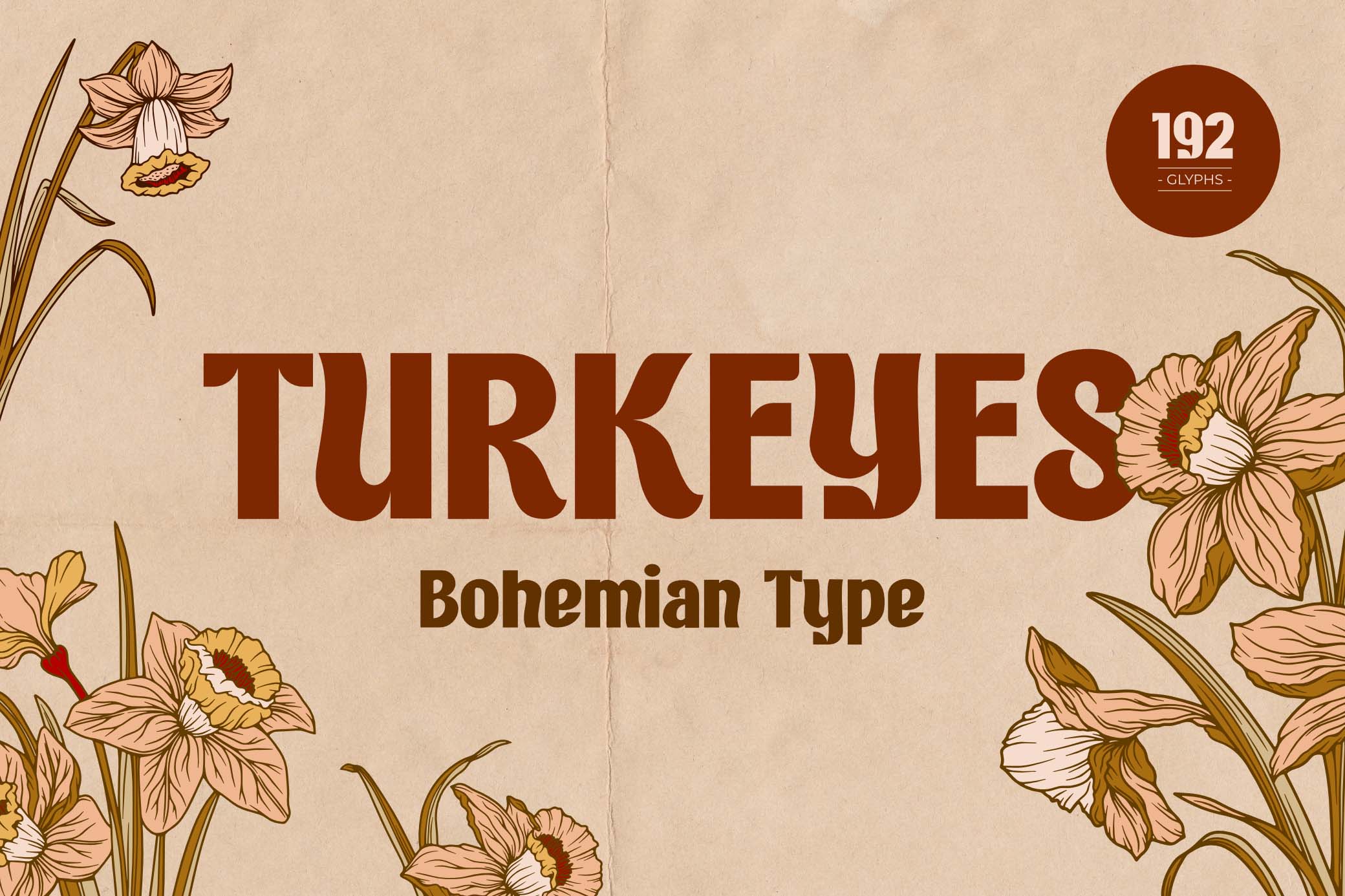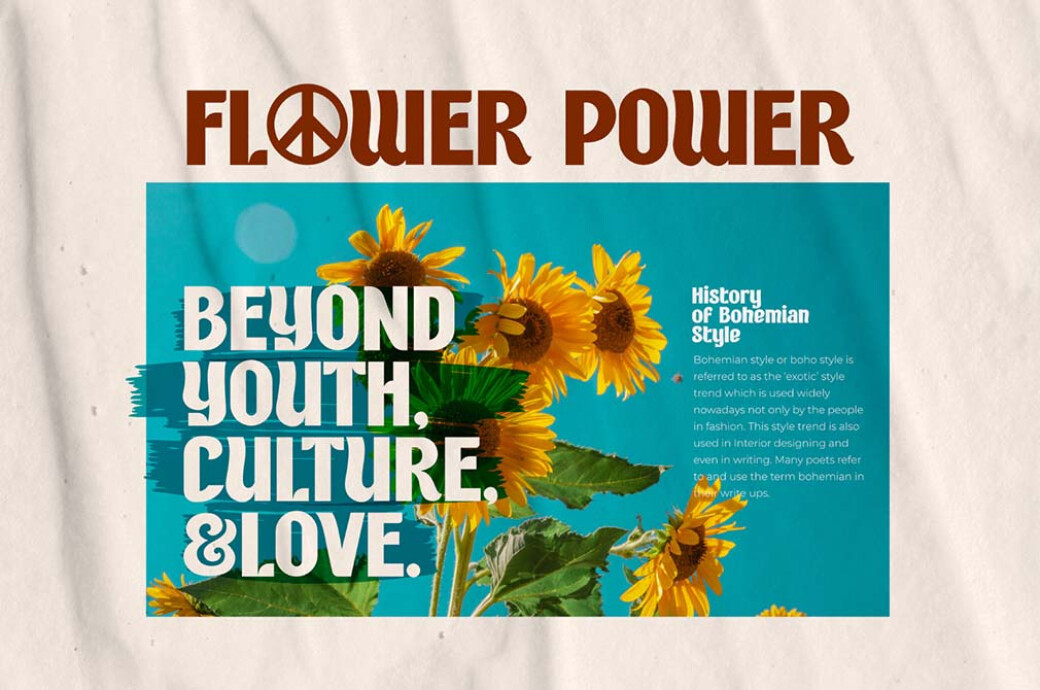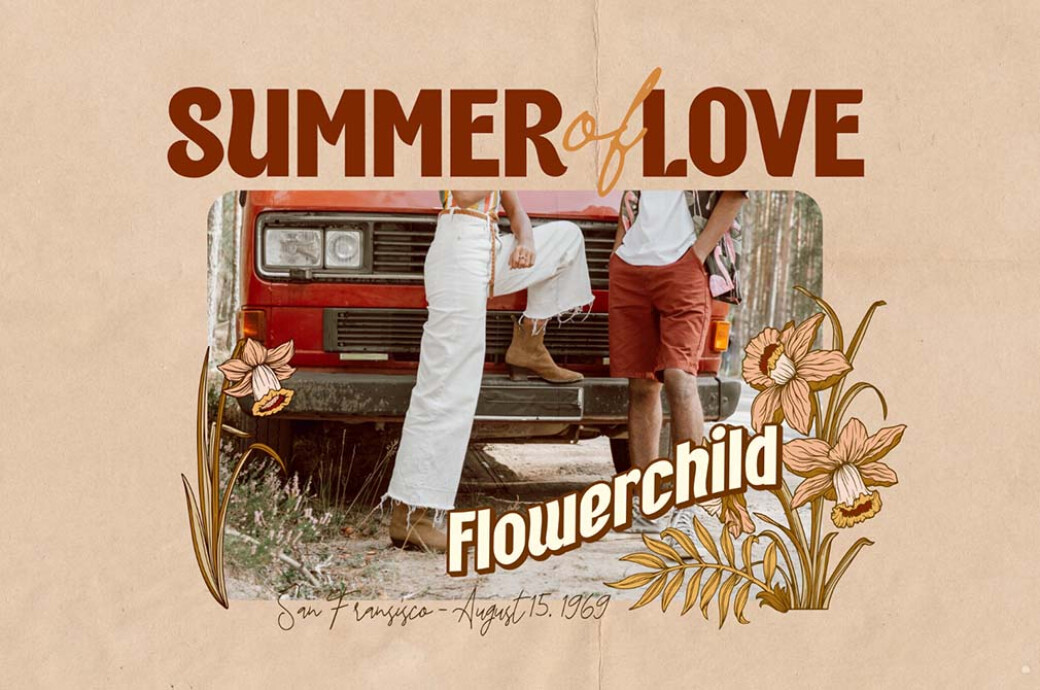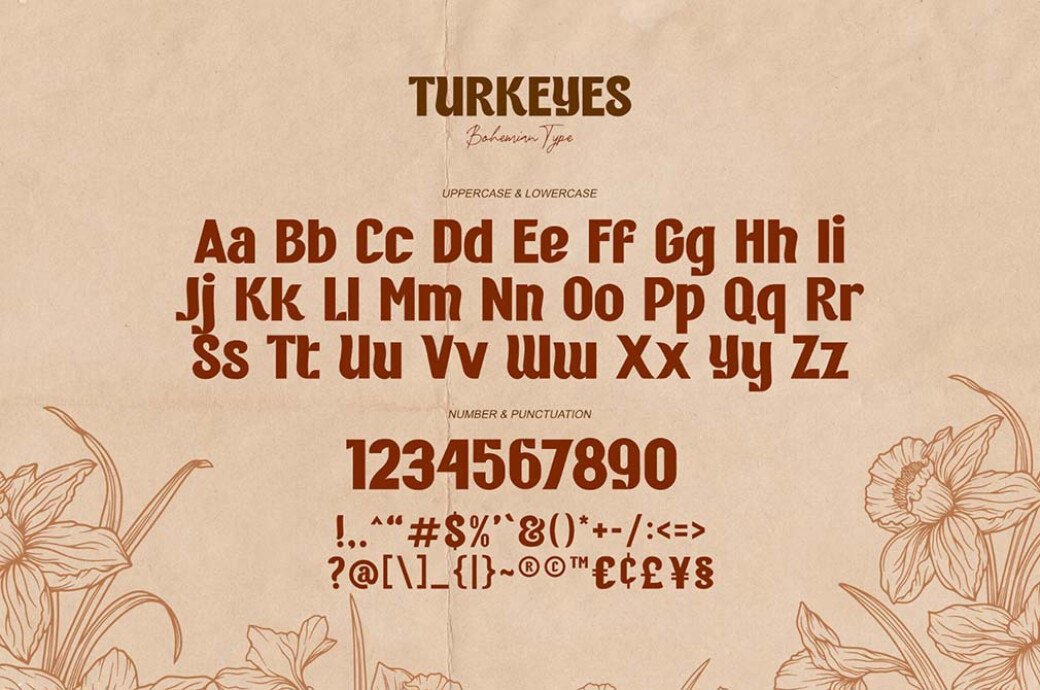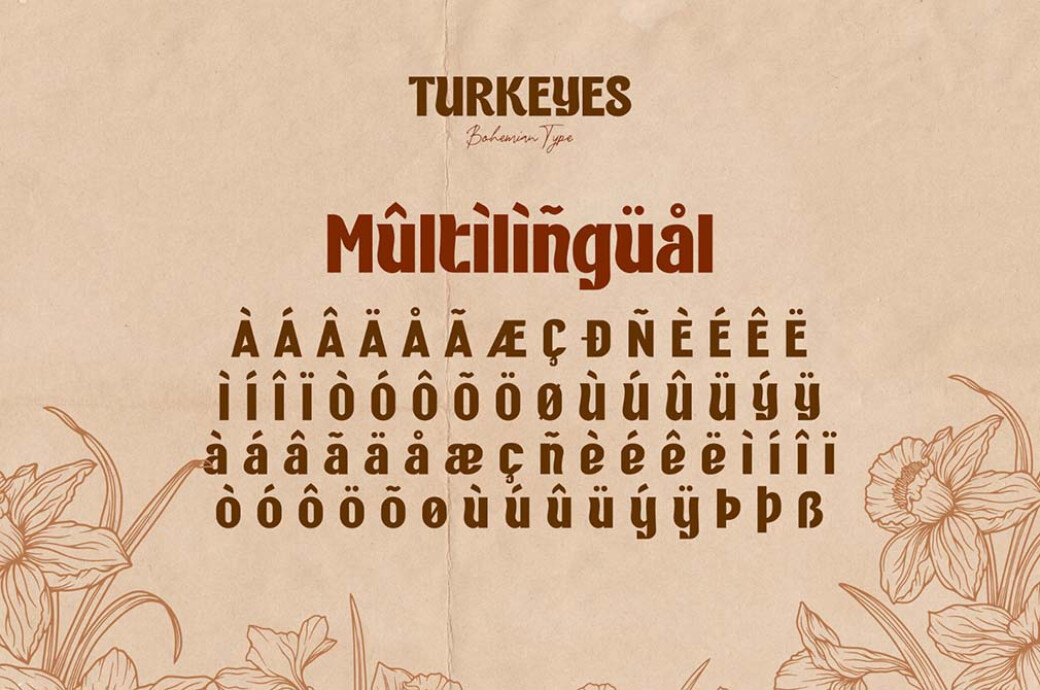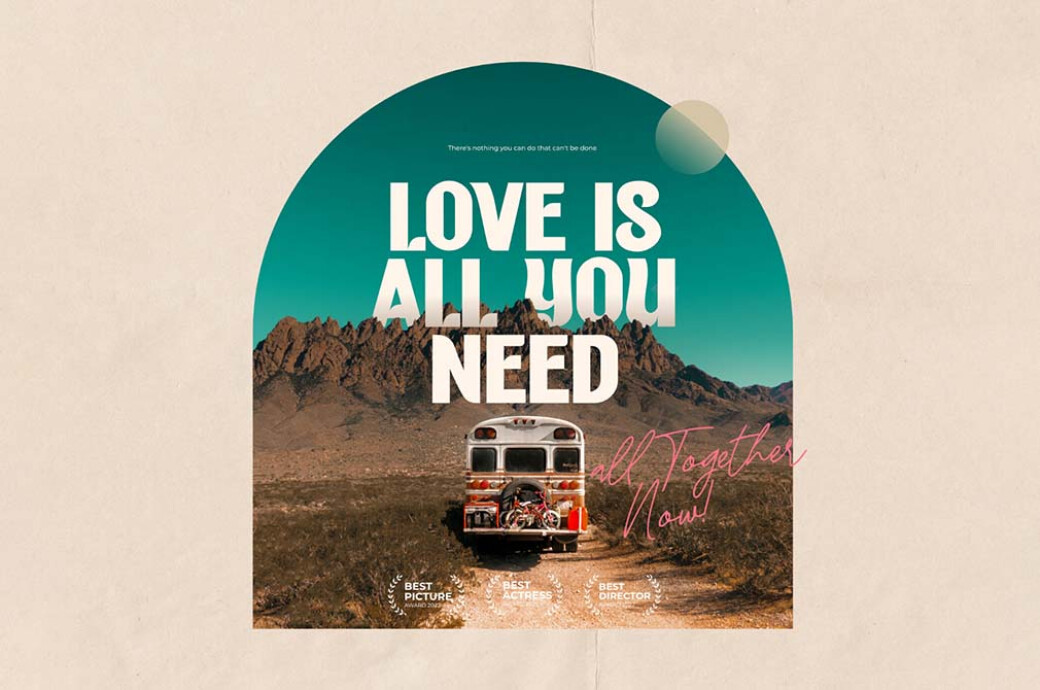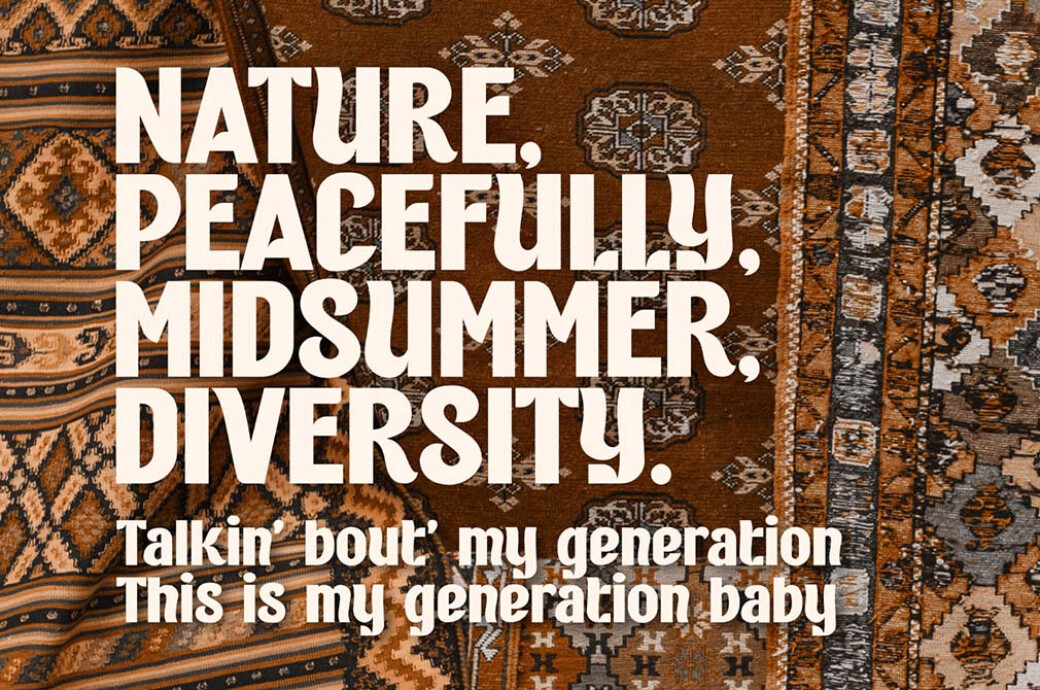
Turkeyes — Bohemian Type
Turkeyes - Bohemian Type
This font inspired by the Bohemian era took the best from two styles — modern and retro. Now it’s ready to give it all to your designs!If you’re in the mood for some Great Gatsby-themed projects or just find yourself inspired by the 20th century’s aesthetic, this font is a must for you! All the vintage designs you create will shine even more brightly once you add Turkeys to it. And with such a wide list of features it will be super easy: the font provides upper and lowercase letters, numbers, punctuation and multilingual support, so you can share your message with the world.